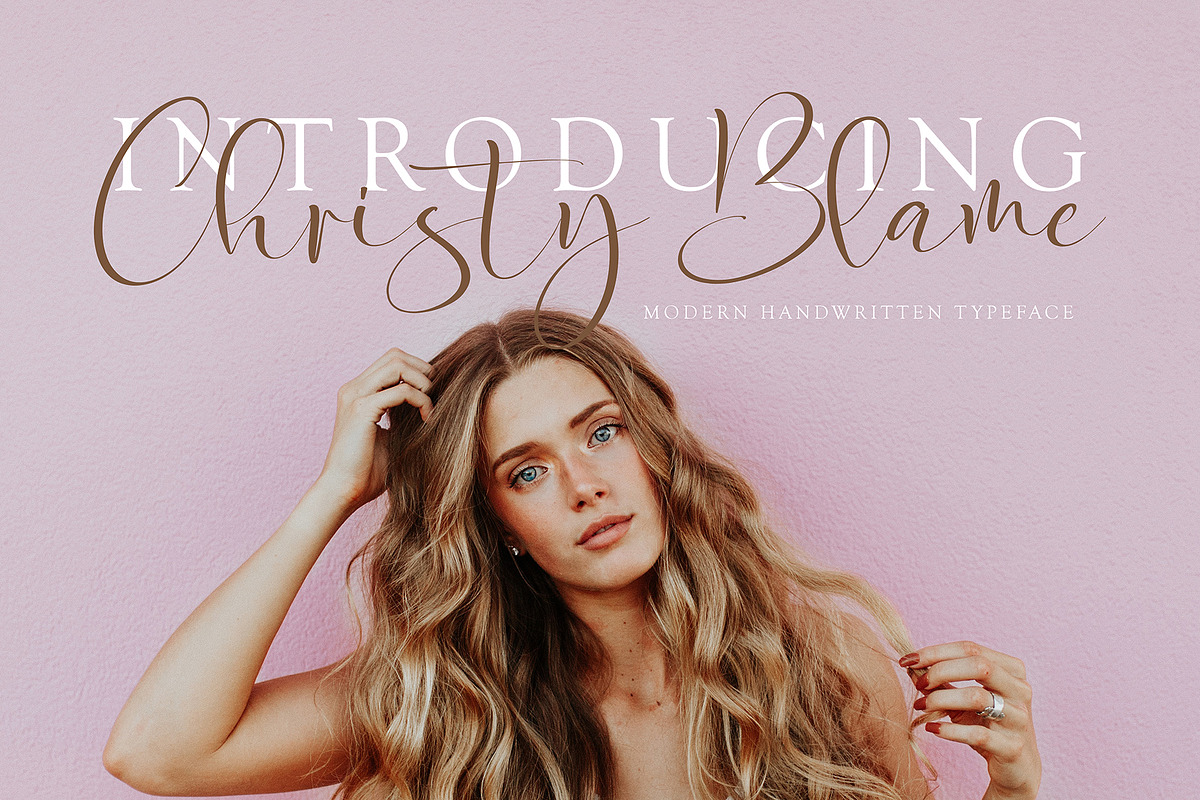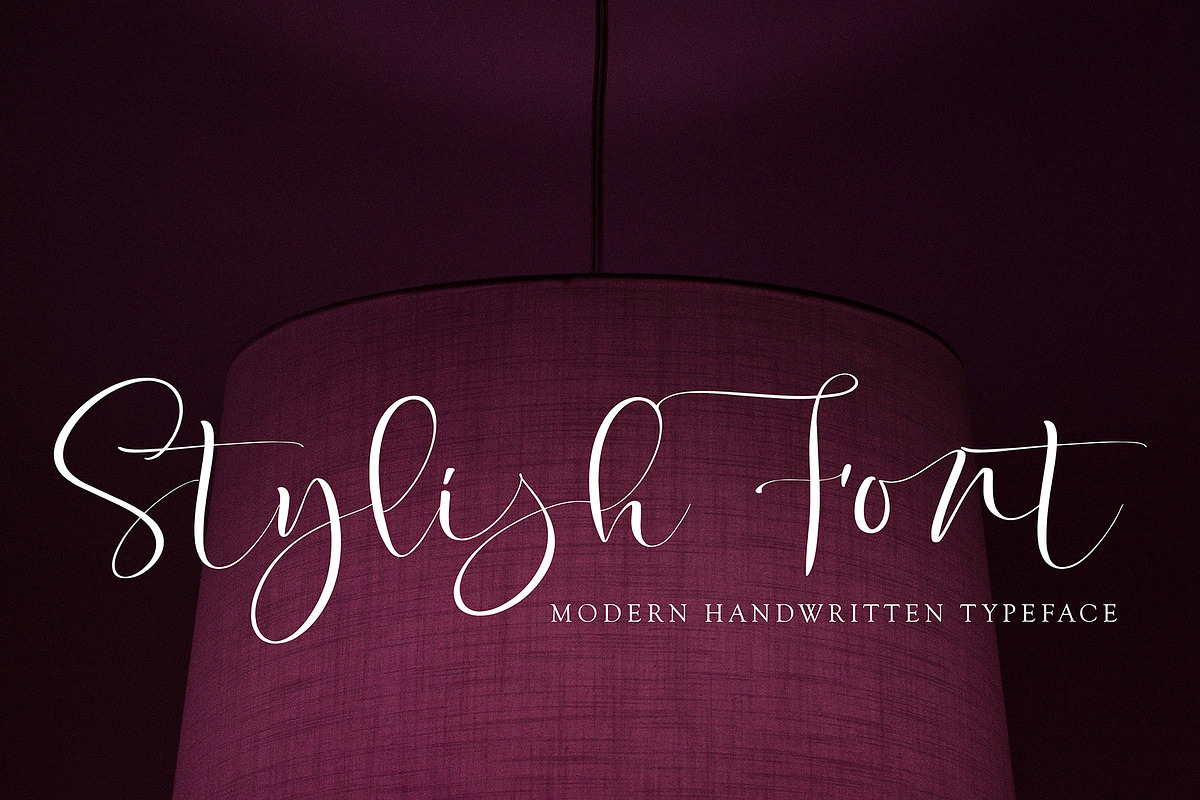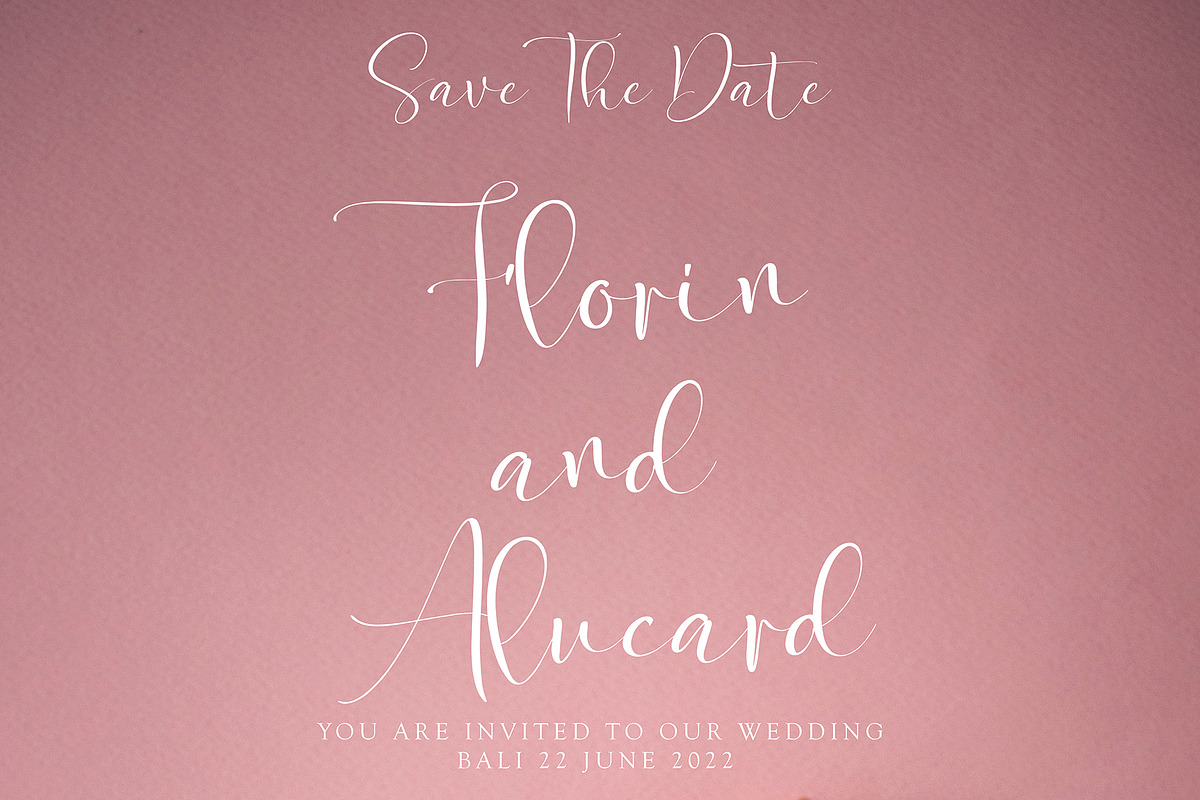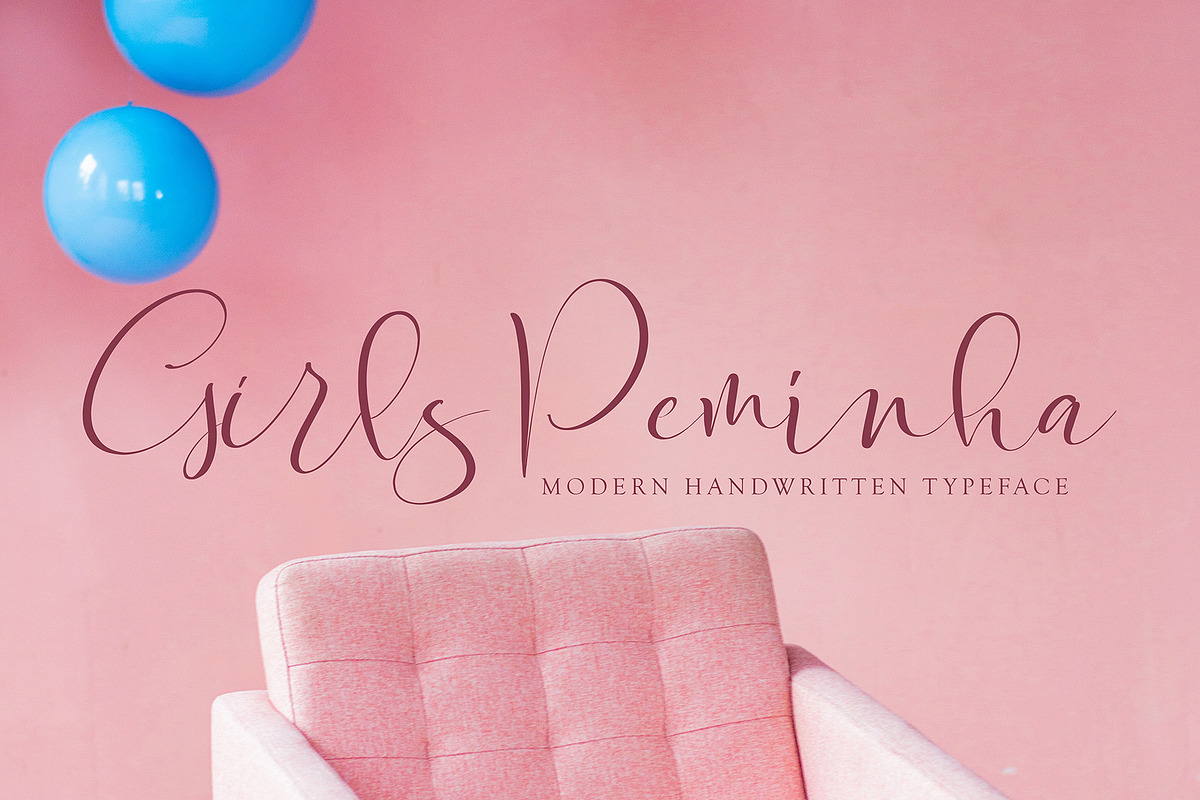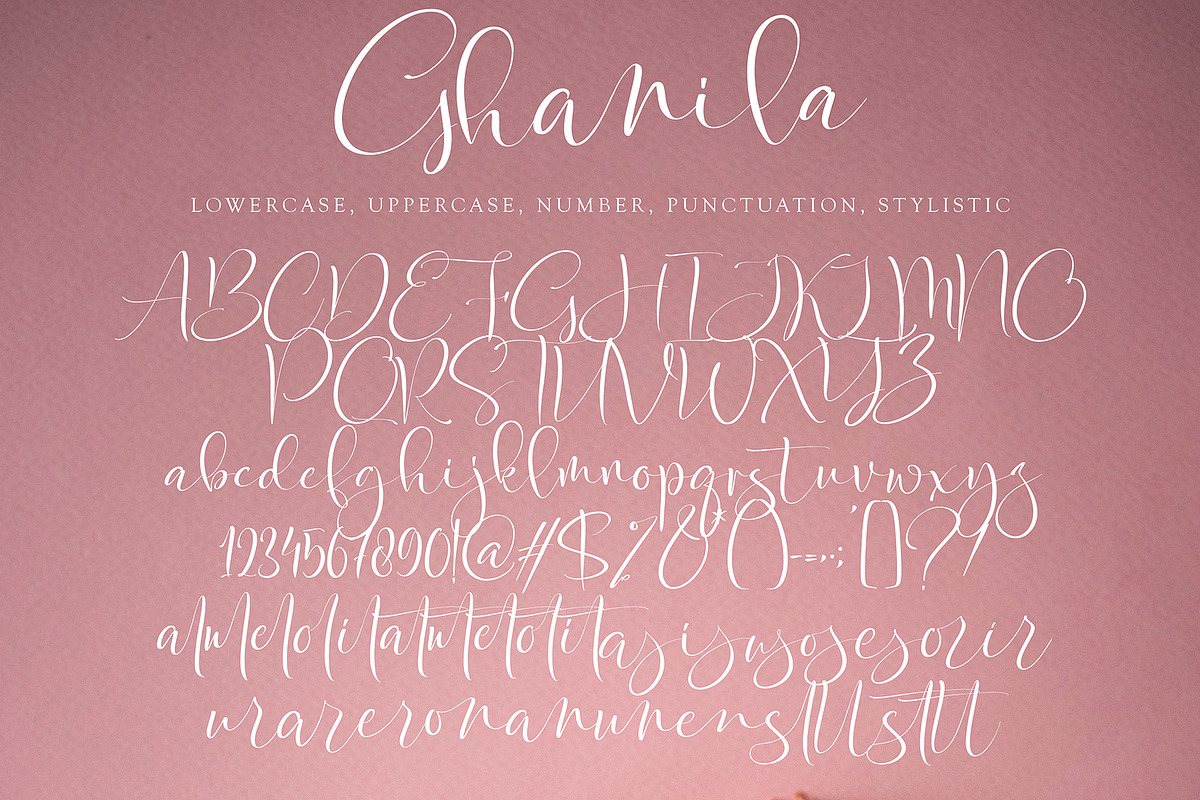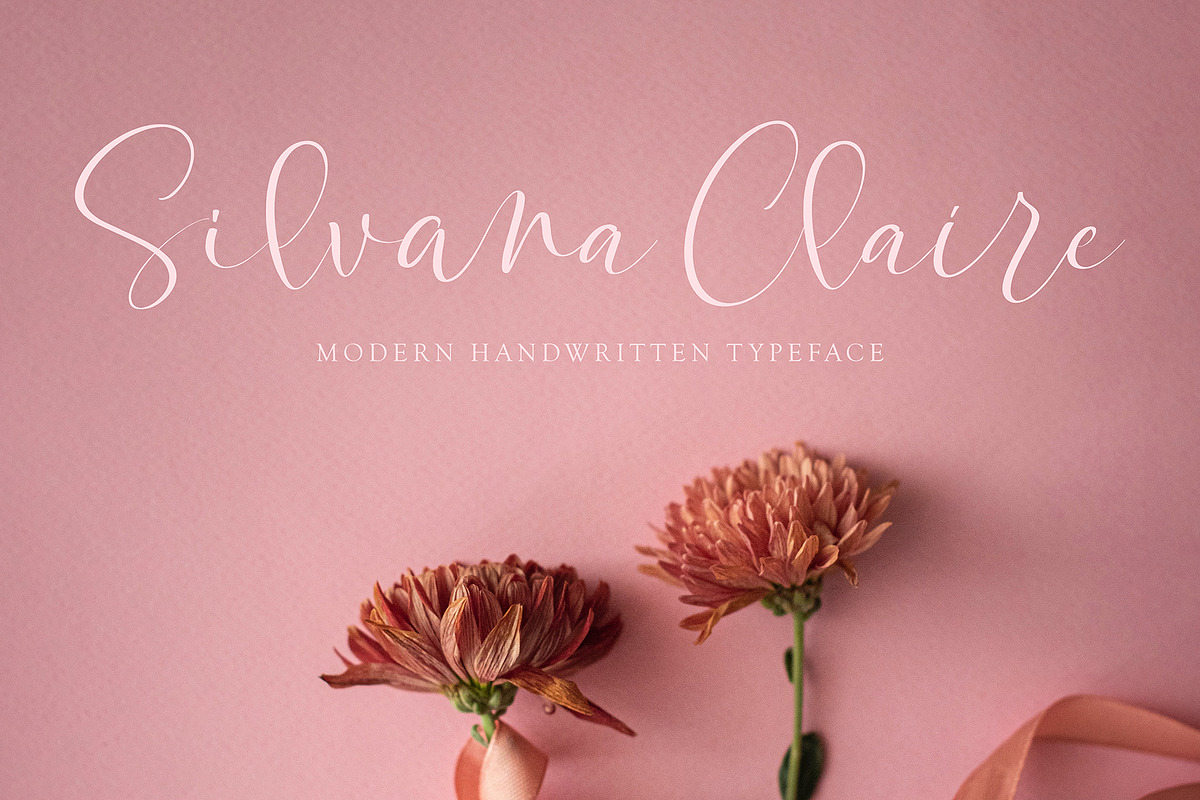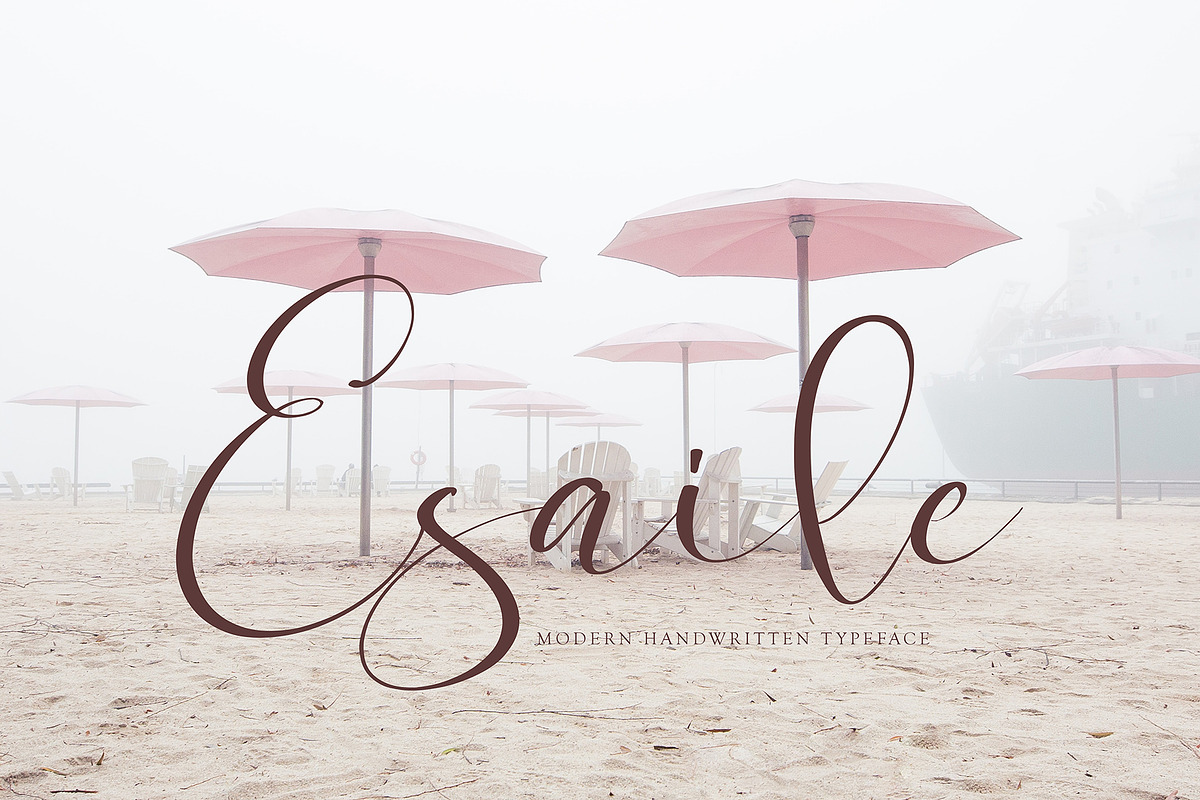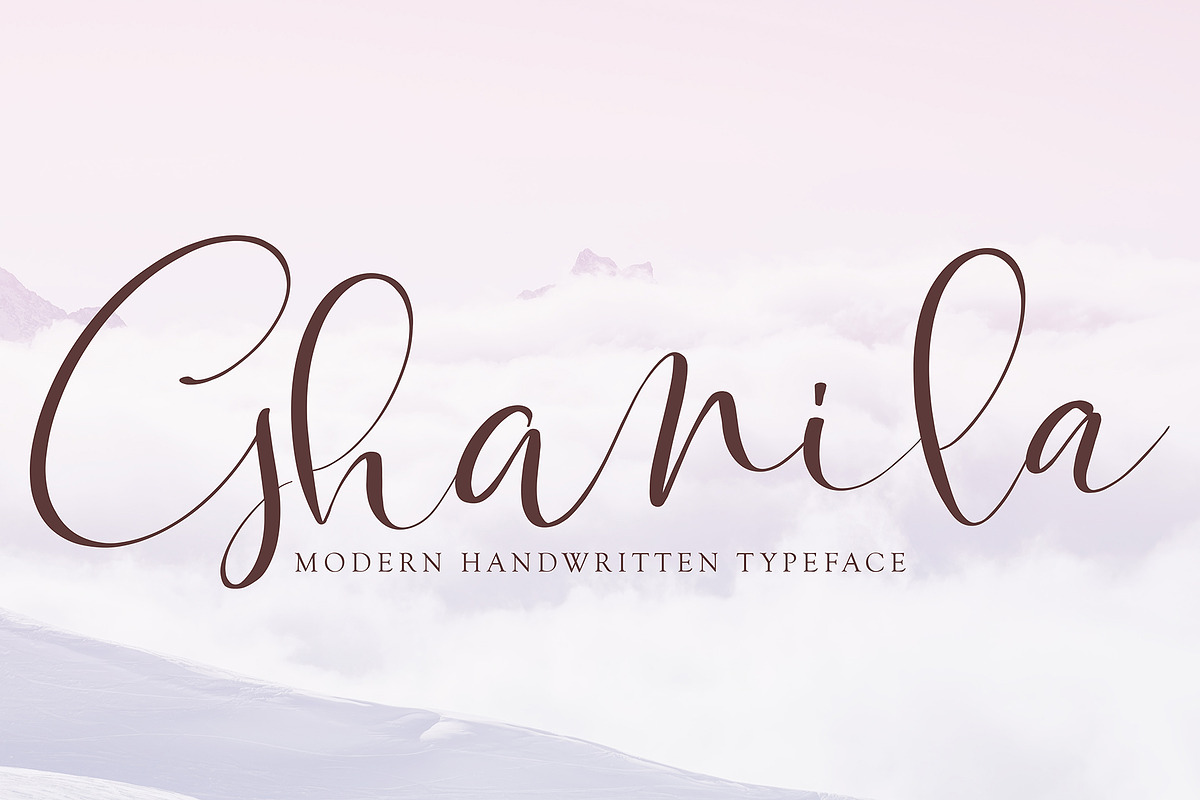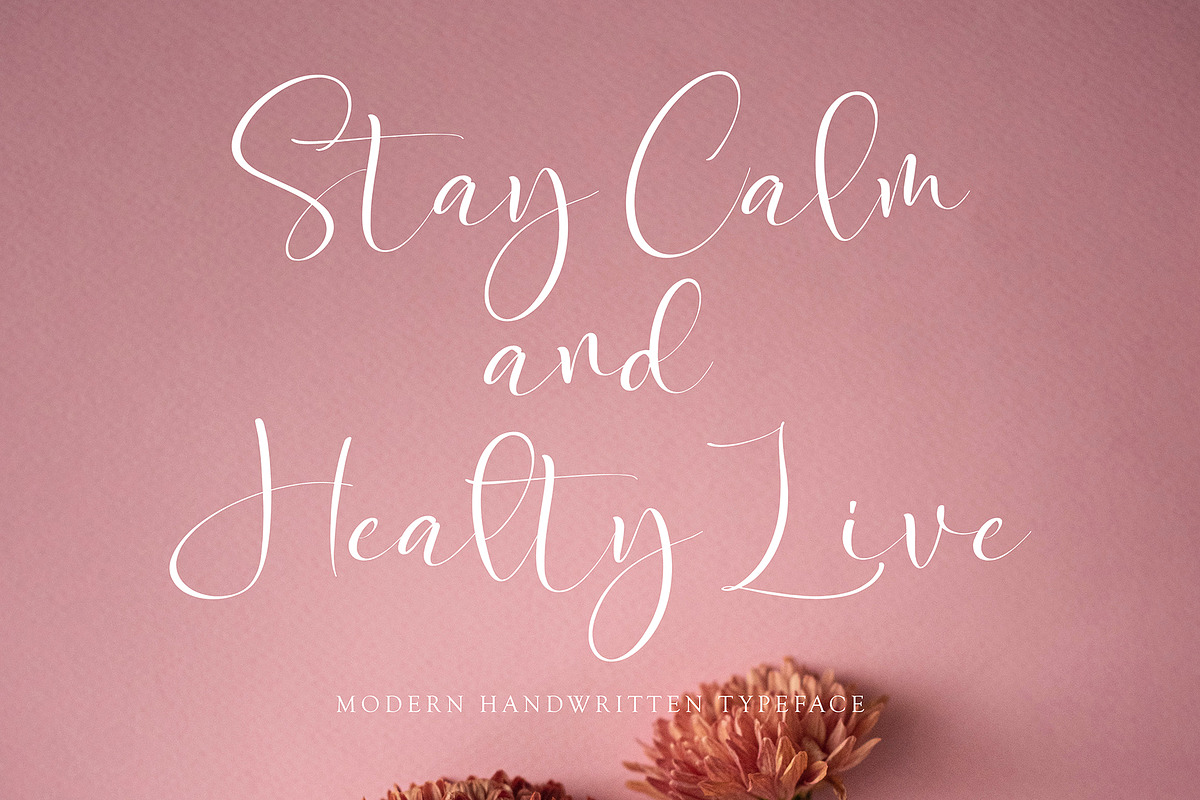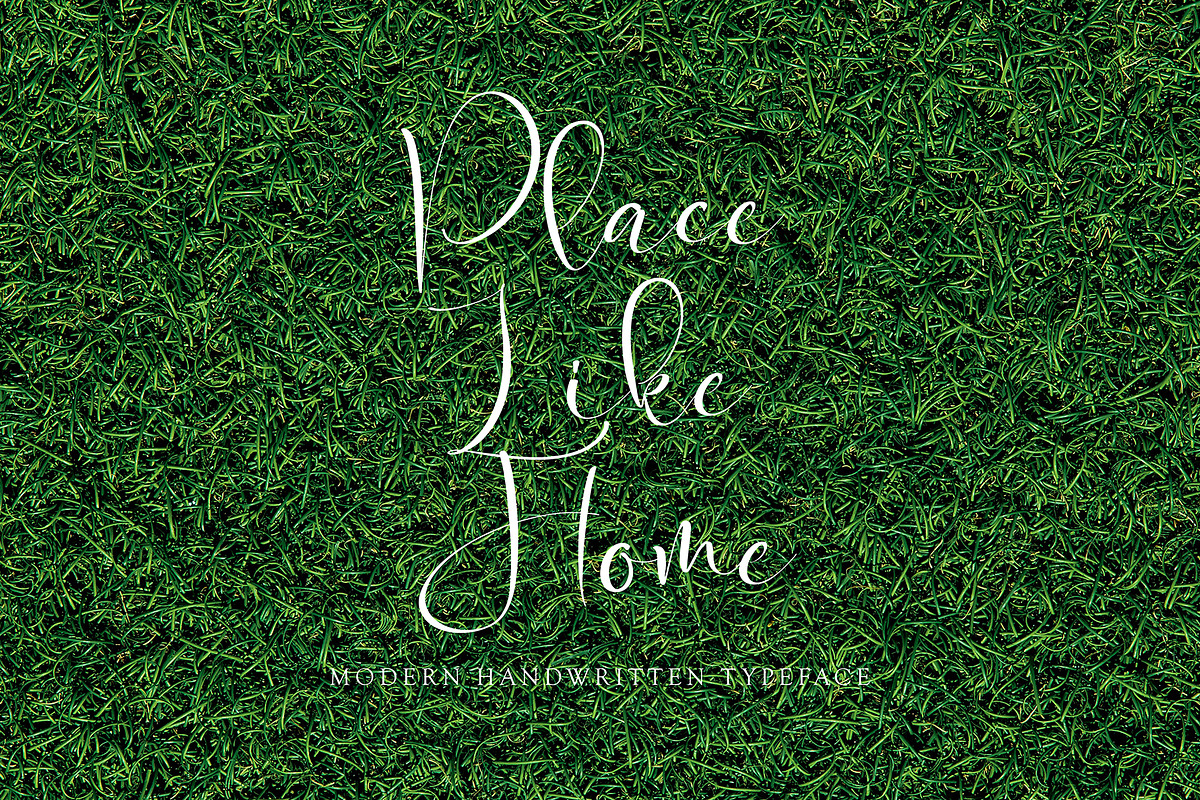
Ghanila
Ghanila font with new style, this font will perfect for many different project ex: quotes, logo, blog header, poster, banding, letter, invitation, stationery, etc...